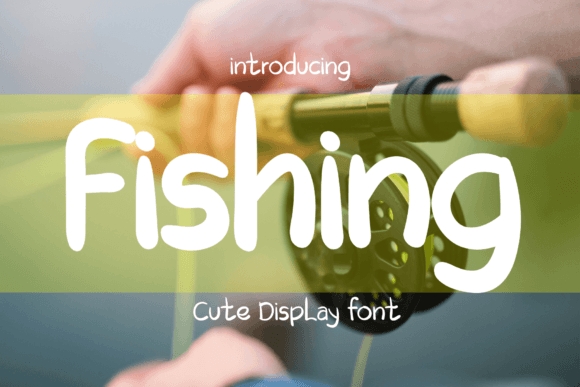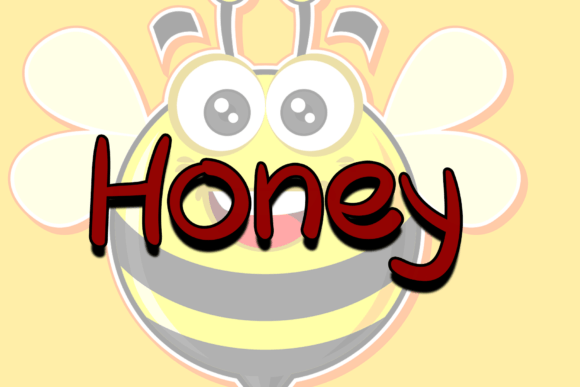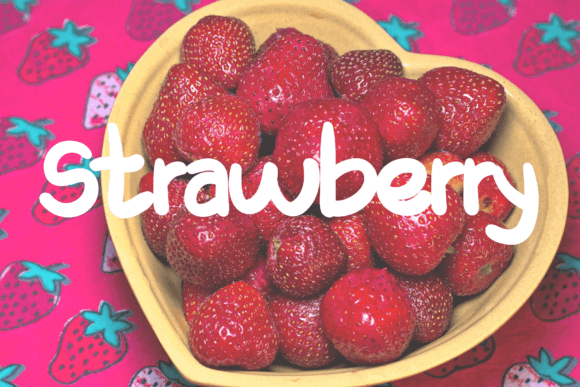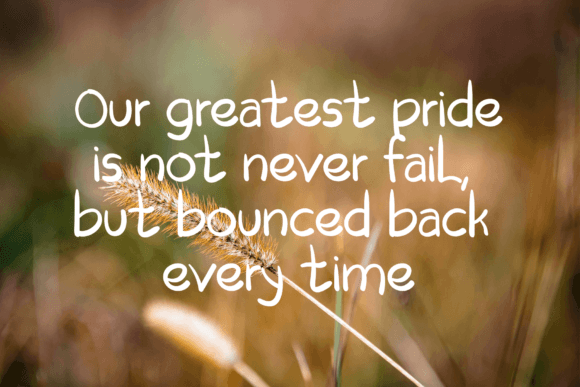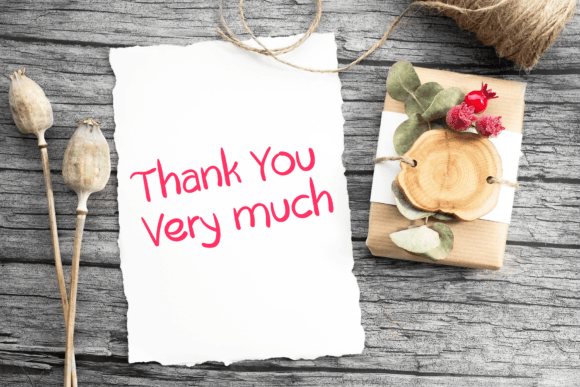
Fishing Font
About Fishing Font
“Fishing” is a distinctive round-lettered handwritten font, thoughtfully crafted to bring a unique touch to your creative projects. This typeface is carefully designed to be used on titles, invitations, letters, and a variety of other products, making it a versatile choice for expressing creativity across different mediums.
The round-lettered design of Fishing adds a special and engaging quality to your text, providing a playful and charming aesthetic. Whether you’re working on eye-catching titles, personalized invitations, or heartfelt letters, this font is tailored to enhance the visual appeal of your content.
By incorporating Fishing into your creative projects, you can expect unique and visually pleasing results. The careful craftsmanship behind this font ensures that it delivers the intended aesthetic, making it a reliable choice for achieving the desired impact in your design work.
In summary, Fishing is more than just a font; it’s a carefully crafted tool that brings a distinct and handwritten charm to your creative projects. Whether you’re working on titles, invitations, or other types of content, let Fishing be the unique round-lettered font that adds character and personality to your designs.